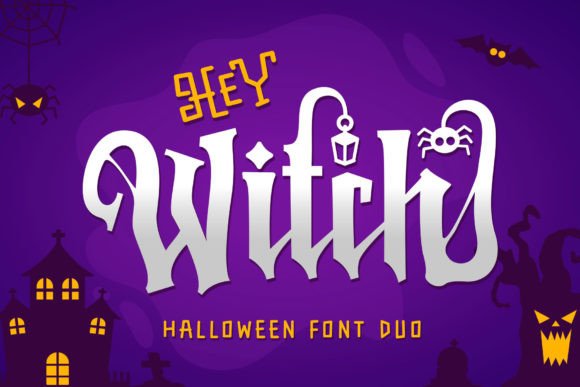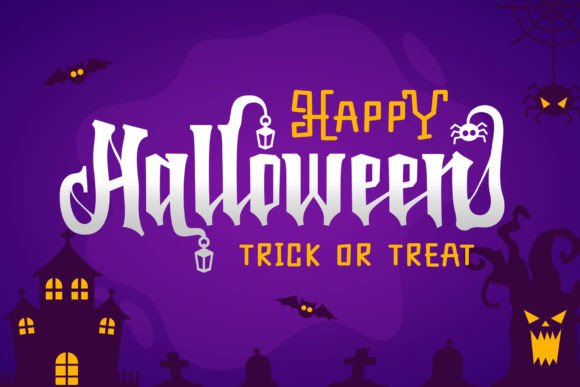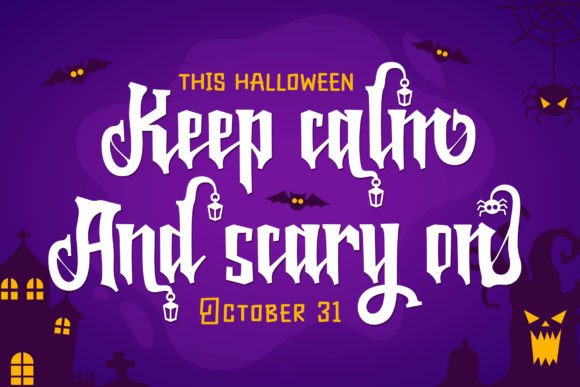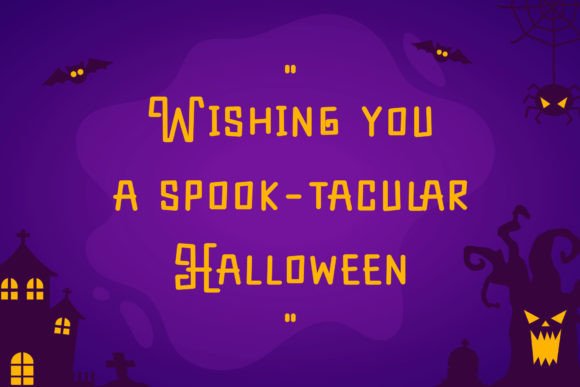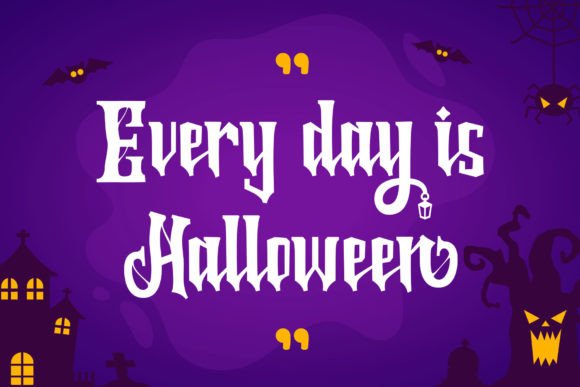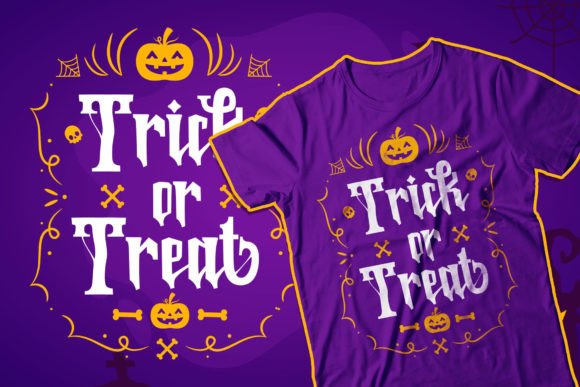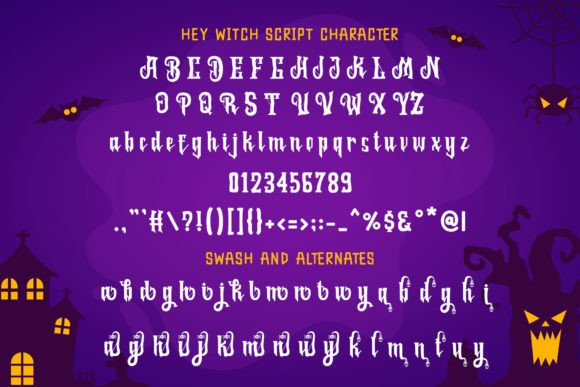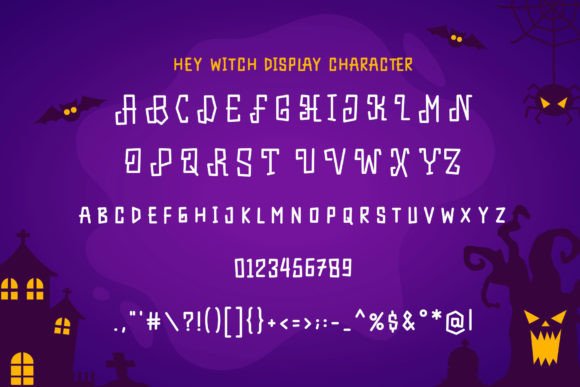
Hey Witch Font
About Hey Witch Font
**”Hey Witch”** is a distinctive duo font that includes both a script and a display typeface, featuring a playful yet spooky Halloween theme. This fresh and unique typeface is perfect for Halloween-themed design projects, such as t-shirts, books, posters, and more, where you want to add a touch of scary yet cute decoration to your creations.
The duo nature of **”Hey Witch”** allows you to combine the script and display fonts creatively to achieve different visual effects and create a consistent Halloween atmosphere in your designs.
In t-shirt designs, **”Hey Witch”** adds a fun and spooky element perfect for Halloween-themed apparel. The font’s unique style stands out and captures the spirit of the holiday.
Books and posters designed with **”Hey Witch”** benefit from its playful and decorative Halloween theme. It adds a fun and eye-catching element that engages the audience and enhances the overall design.
In summary, **”Hey Witch”** is a distinctive duo font with a scary yet cute Halloween theme. Its versatility and unique style make it an excellent choice for Halloween-themed t-shirts, books, posters, and any project where you want to add a playful and spooky touch to your designs.